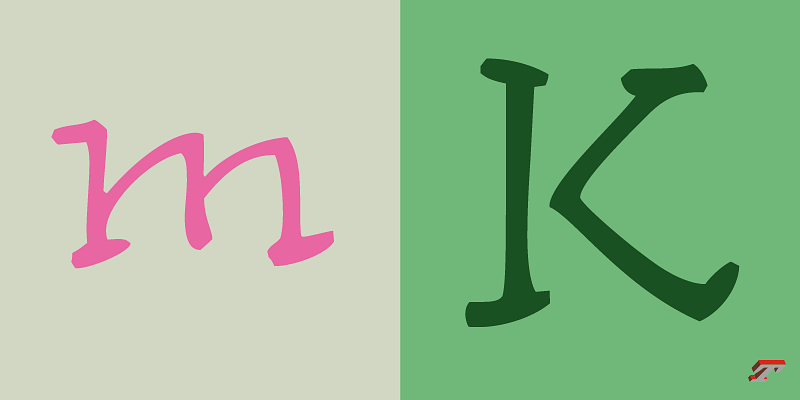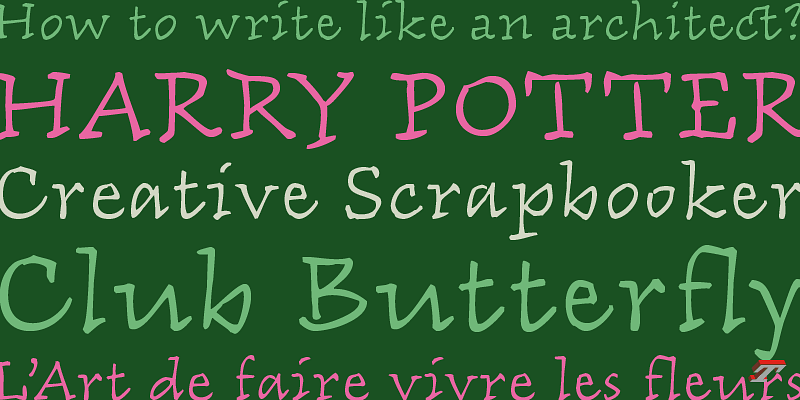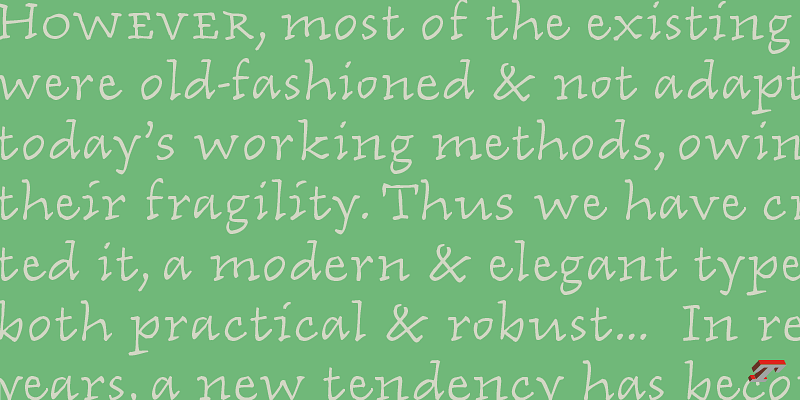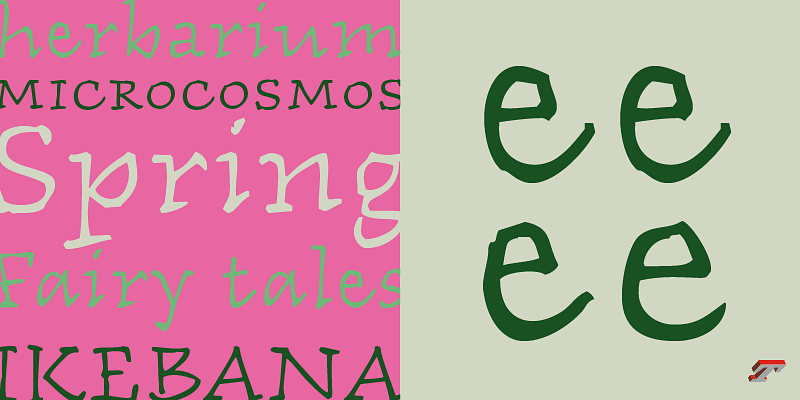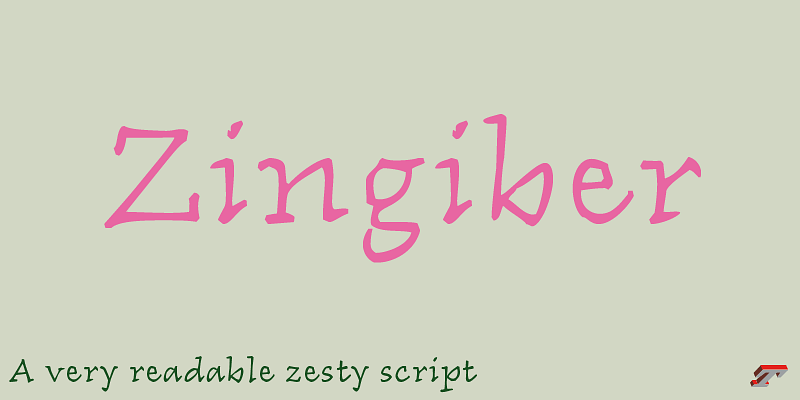
Zingiber, an elegant yet relaxed script typeface, showcases the skilled touch of a handcrafted design. Its serifs ensure excellent readability, making it perfect for headlines and short texts in a variety of contexts—children’s books, historical publications, or even cookbooks. Quite naturally, Zingiber’s artisanal style lends itself beautifully to visual identities, packaging, and social media communication with its subtle elegance and charm — much like fine foods in a delicatessen.
Though it mimics the fluidity of handwriting, Zingiber is a formal typeface, featuring a range of proportions and subtle contrast, capturing the personal touch of a handcrafted script.